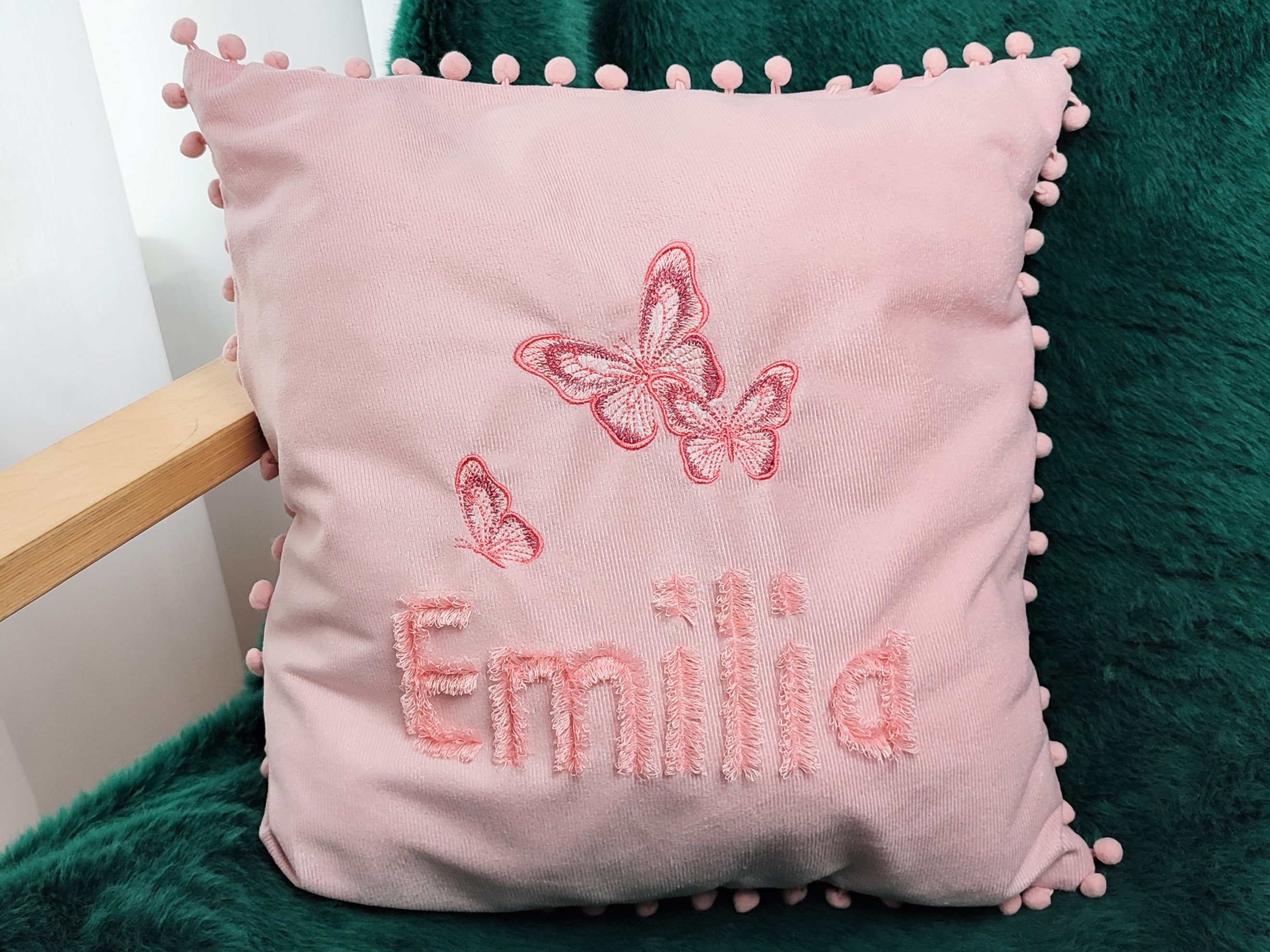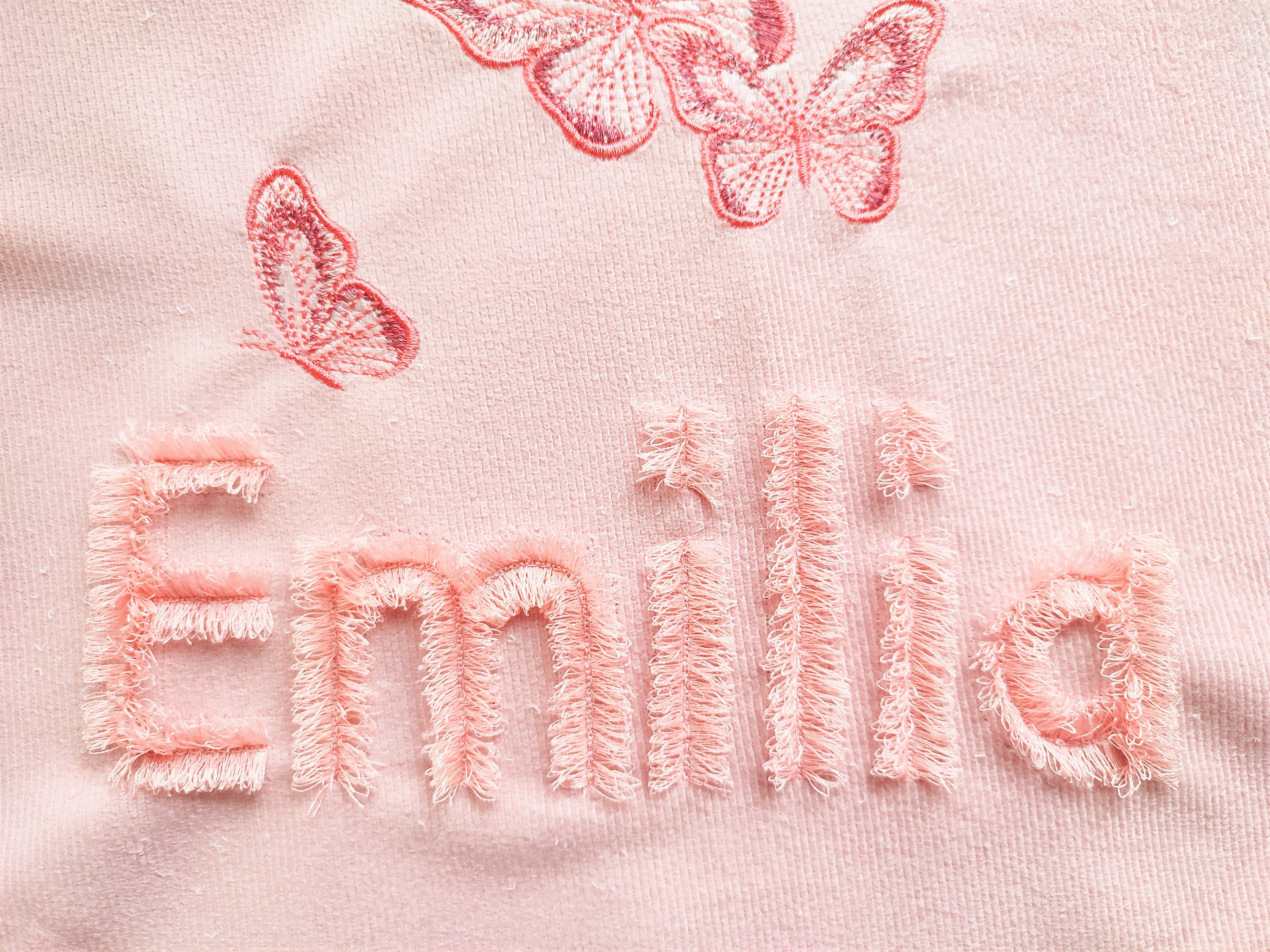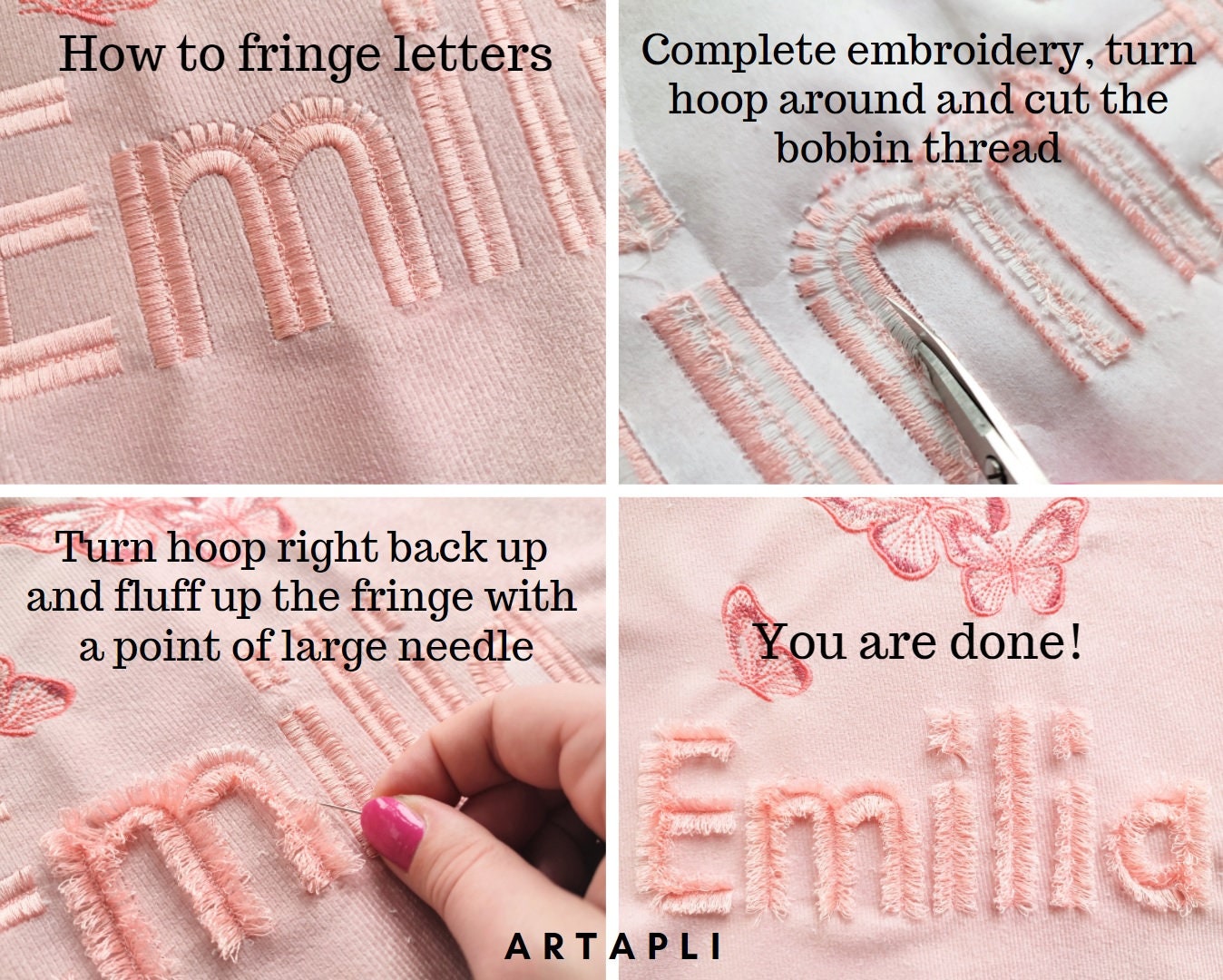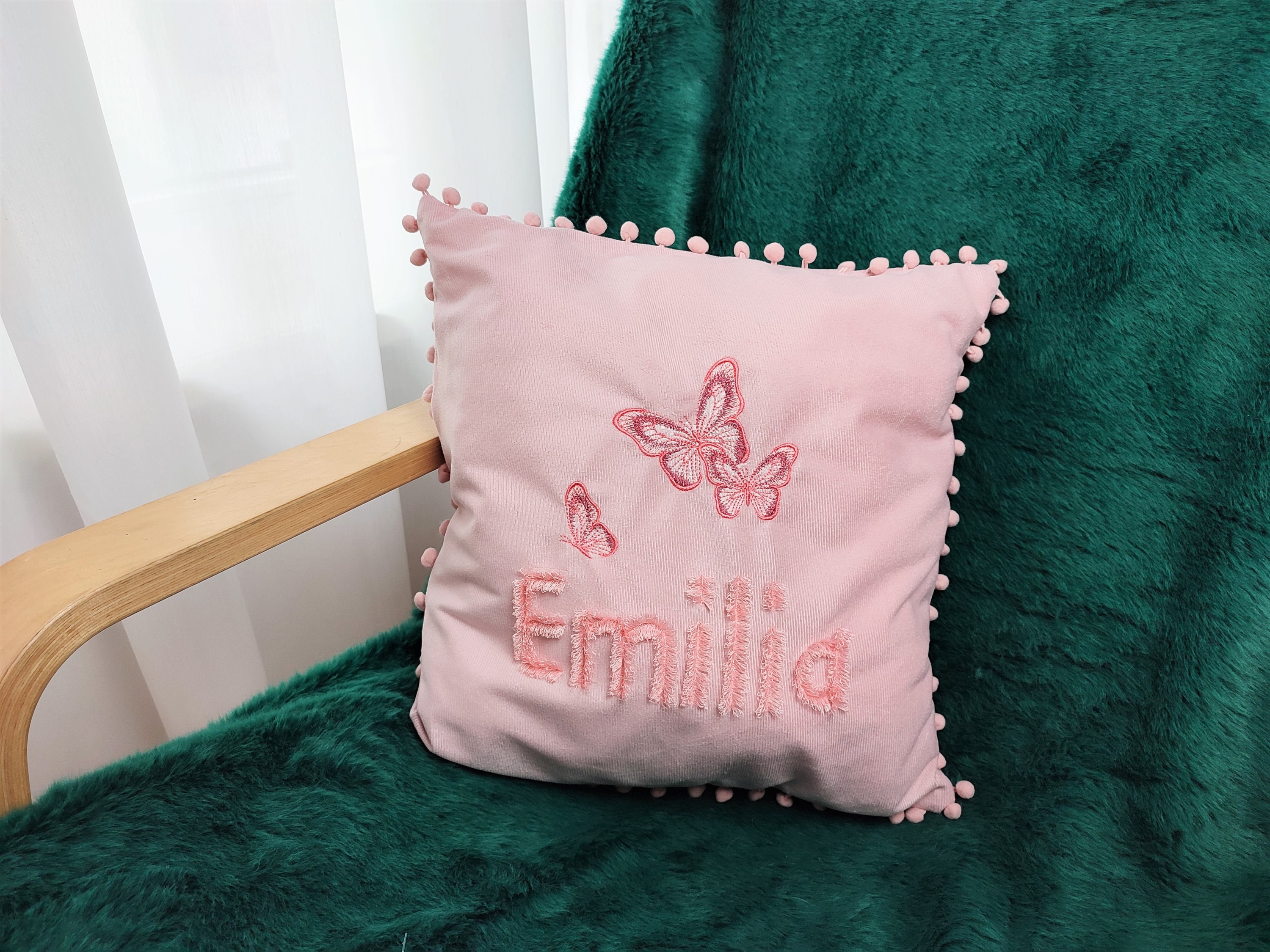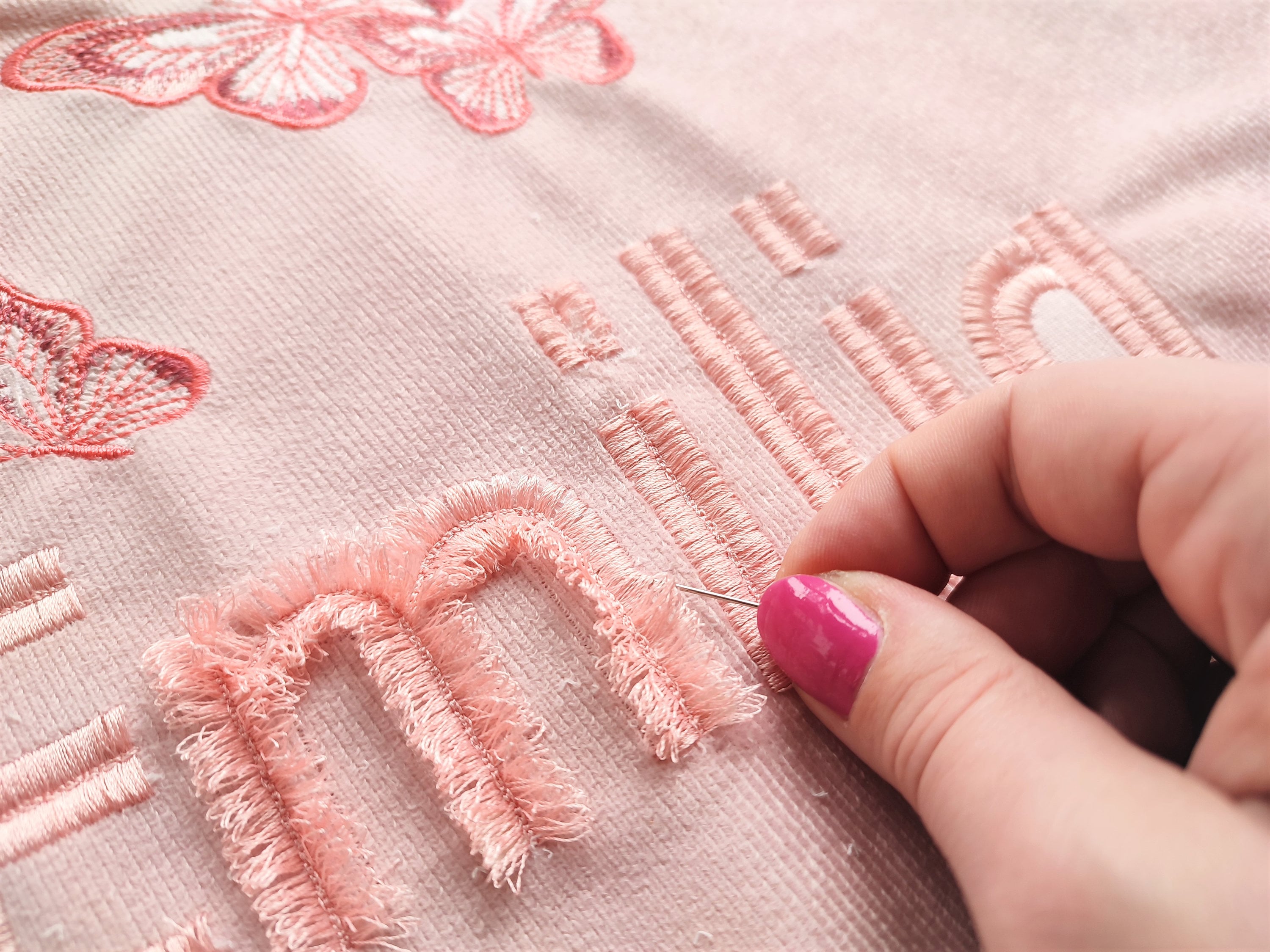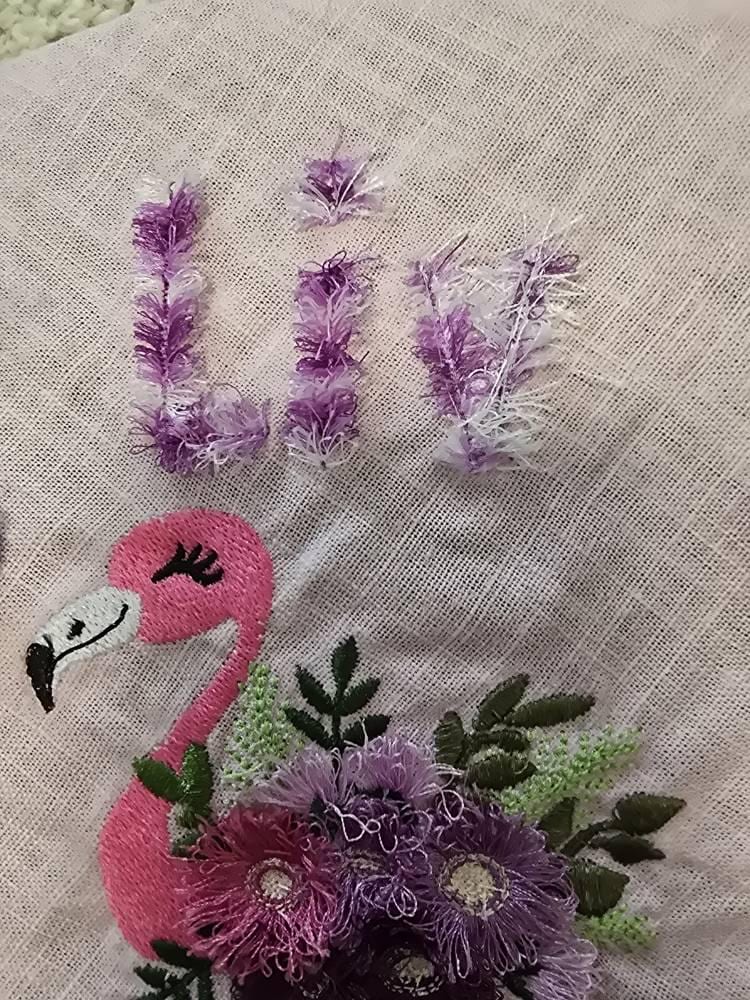
Cute fluffy fringed FONT machine embroidery designs in assorted sizes, girly pretty fluffy letters and punctuation marks, BX font included
You may fringe all letters.
It is easy. Embroider the design as usual. Large satin stitches will be loose. Once you complete stitching the design, turn over your hoop to see a reverse side, and cut the bobbin thread, along the large satin stitches. Turn the hoop back over and fluff up the "fringe" around. Please view images on how-to. And here is a short video tutorial of my other fringed font, but the technique is the same:
Entire alphabet A - Z uppercase and lowercase, and punctuation marks.